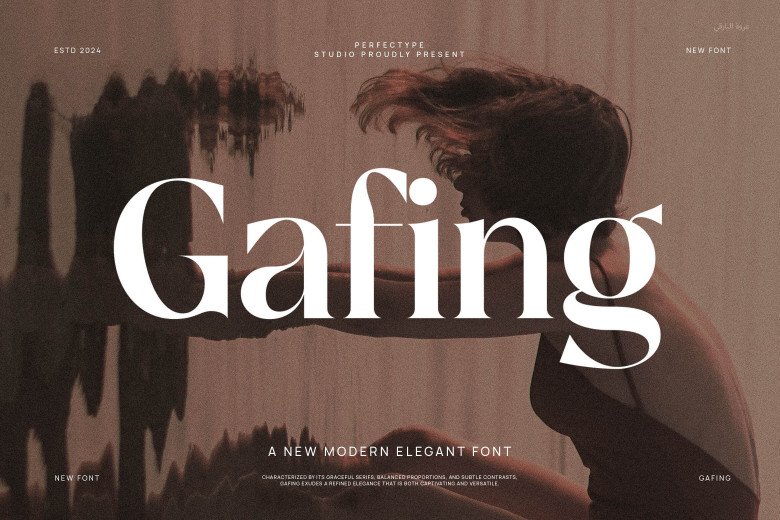
Gafing Font
Gafing is an elegant serif typeface that captures the retro aesthetics of the old school while also giving it the new school feel. Its letters are fine and sinuous and when positioned, offer detailed engravings and would suit any text you desire to look classy and stylish.
Gafing Serif Font